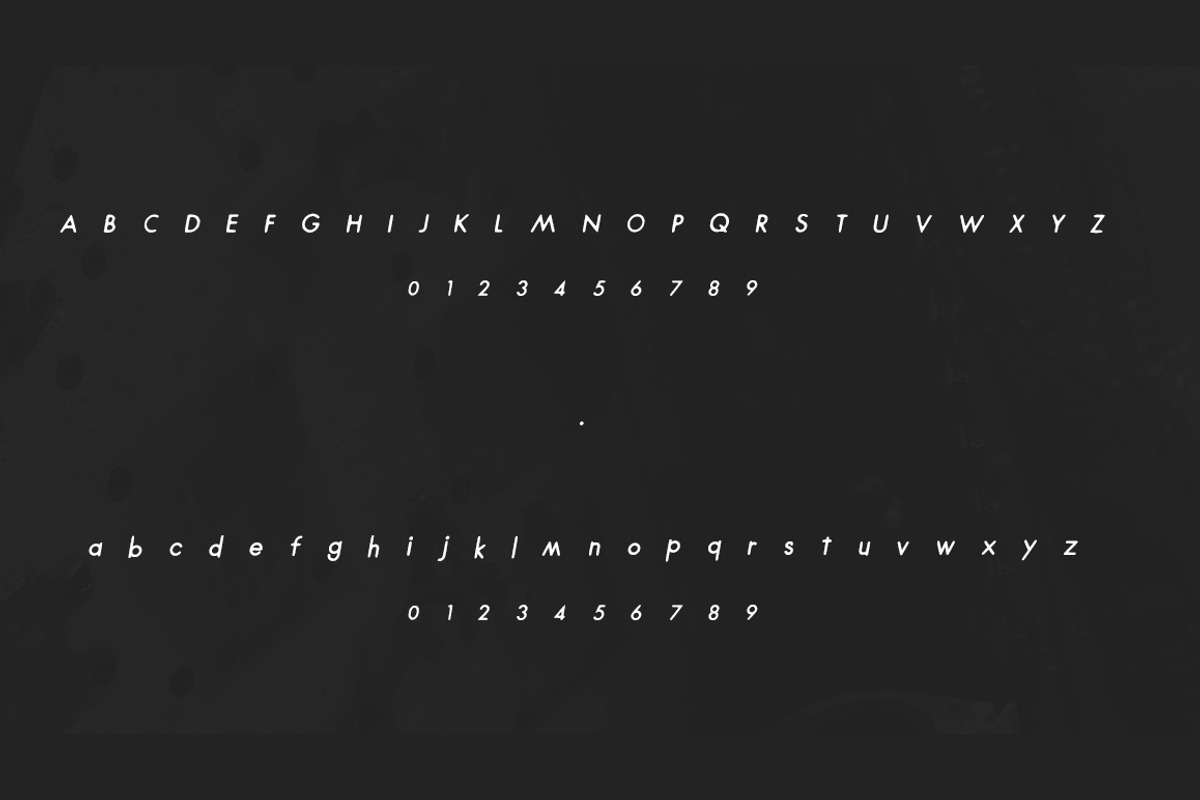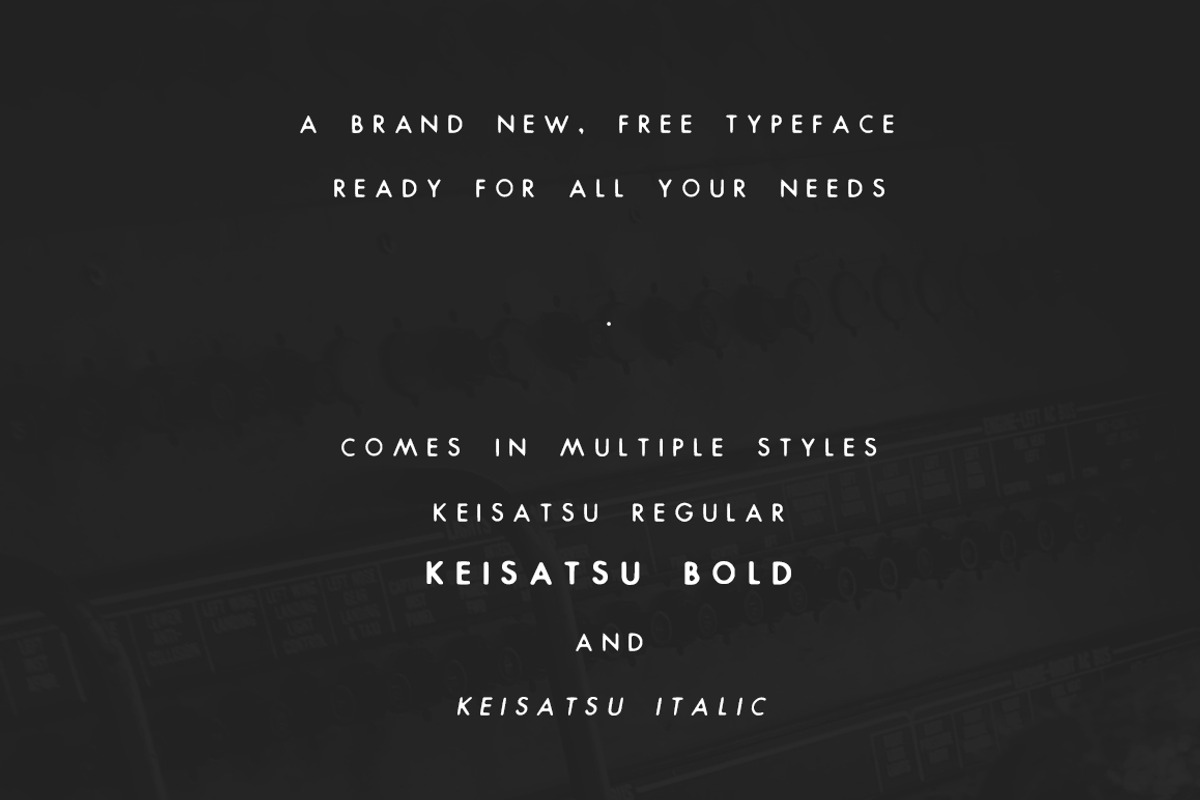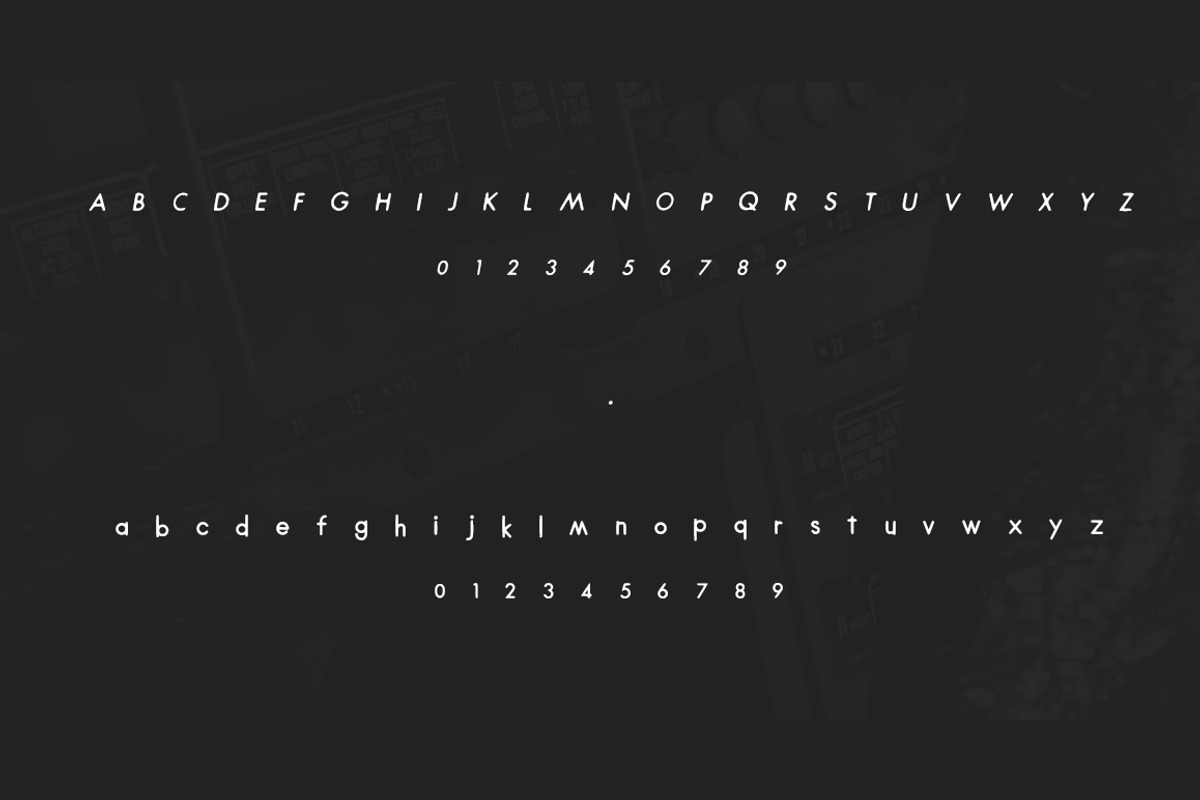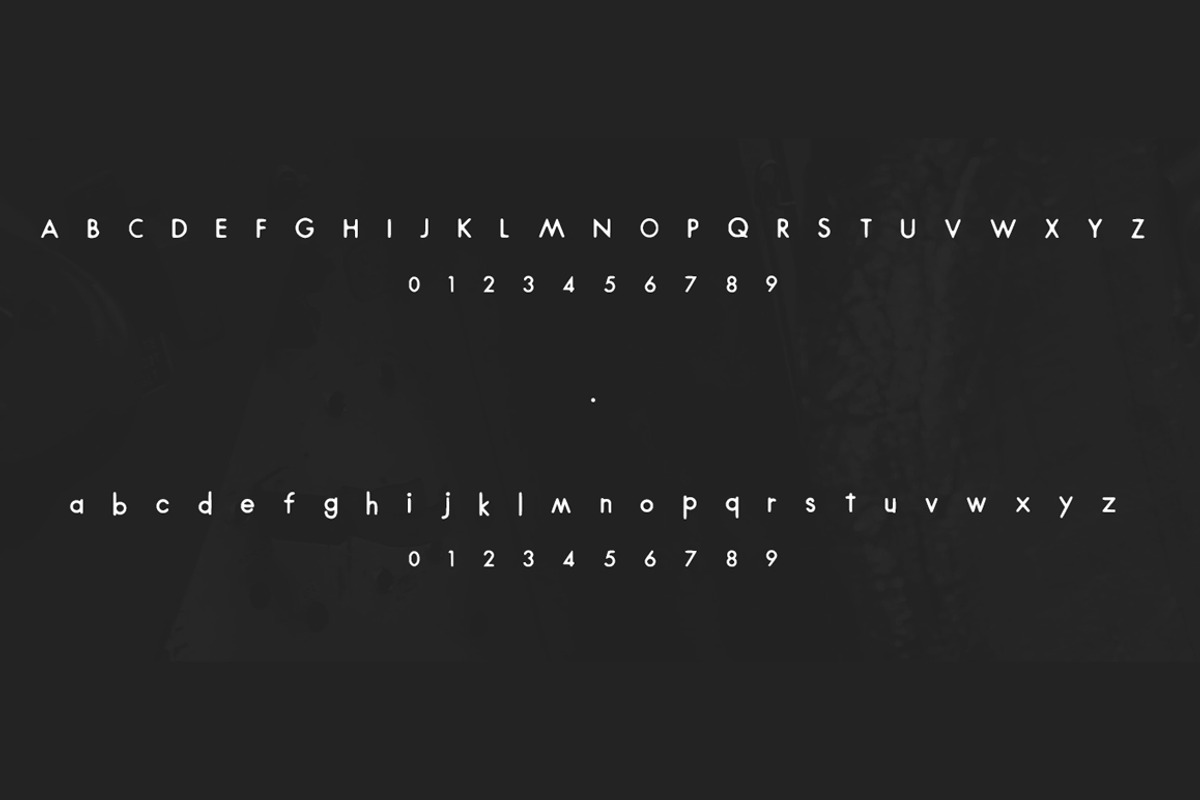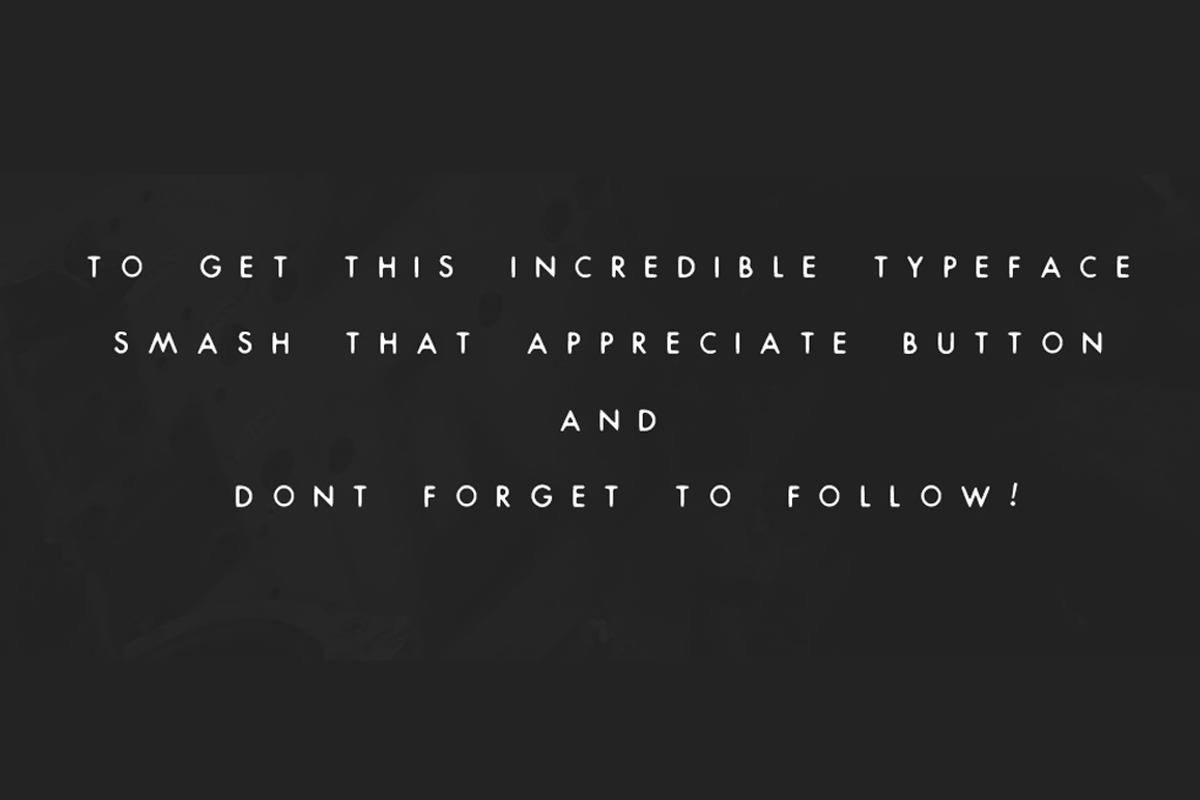
Keisatsu - An Exclusive Typeface
Keisatsu - An Exclusive Typeface by The Font Shack is a font selected for branding, posters, packaging, typography.
Why Keisatsu - An Exclusive Typeface is worth a look
Keisatsu - An Exclusive Typeface by The Font Shack fits naturally into Branding, posters, packaging, typography.